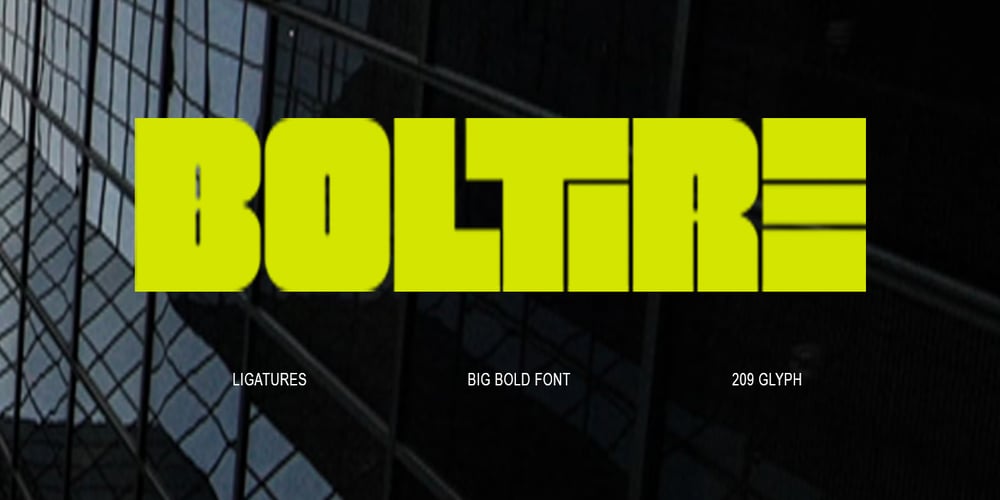
Boltire Font Family was designed by Sarid Ezra, Dzikrul Aulia and published by Bale Type. Boltire contains 1 styles and family package options. Boltire is an all caps strong bold font with ligatures. You can use this font for any purpose especially to make a headline and statement. This font is suitable for poster, quotes, and also logotype. With unique lowercase and ligatures, you can combine to make your design looks more appealing. Boltire also support multi language!